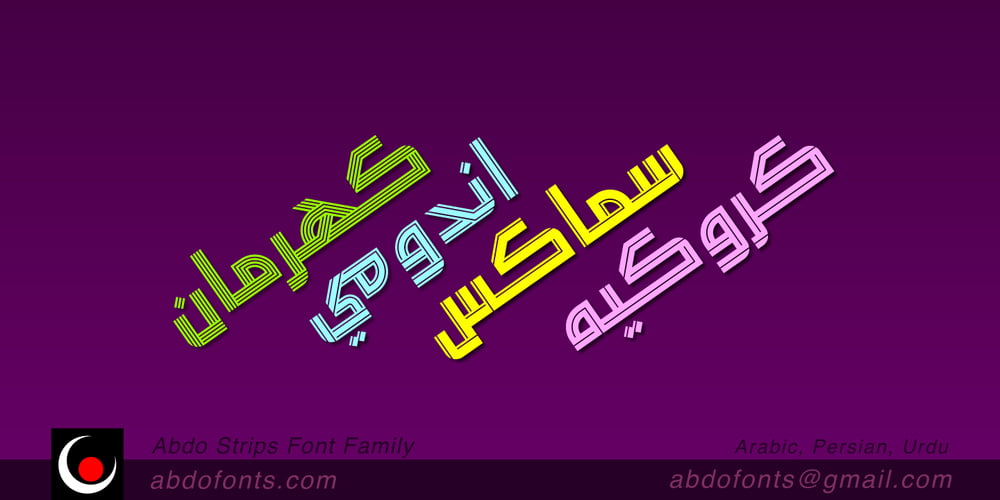
Abdo Strips Font Family was designed by Abdulsamie Rajab Salem and published by Abdo Fonts. Abdo Strips contains 4 styles and family package options. Abdo Strips is a set of 4 strips style fonts . This is an OpenType Font supporting Arabic, Persian and Urdu to and compatible with the various operation systems and modern software. The combination of square Kufi and modern styles made it a beautiful typeface appropriate to the titles, and able to meet the desire of the user in the design of ads and modern designs of various types of audio and visual.